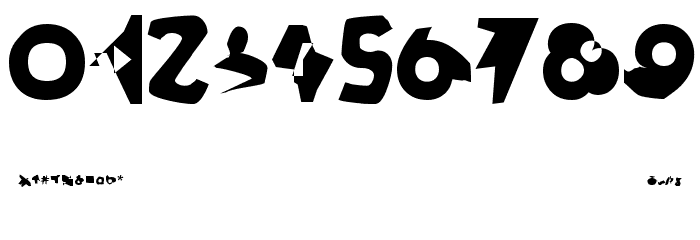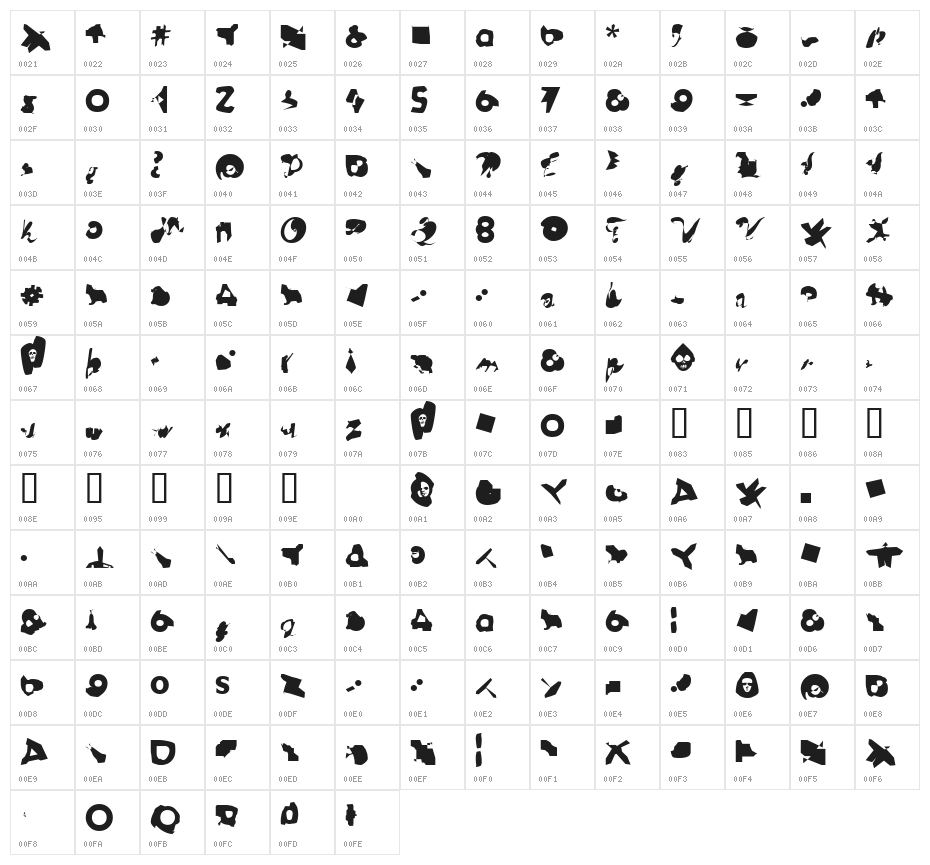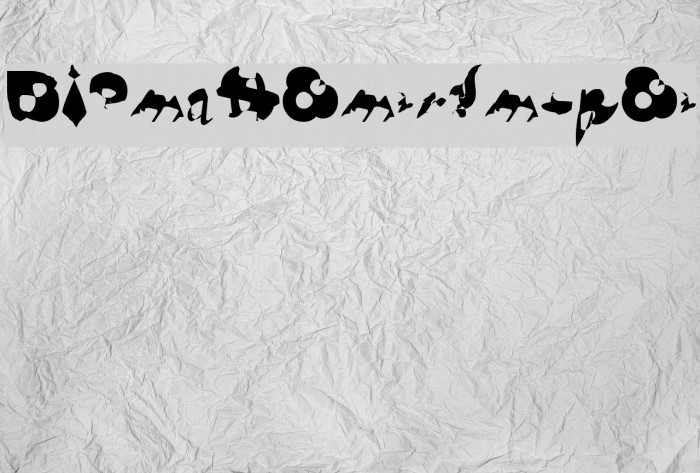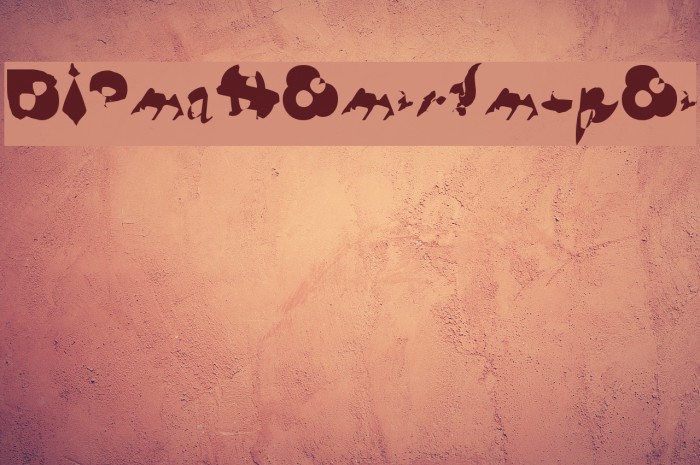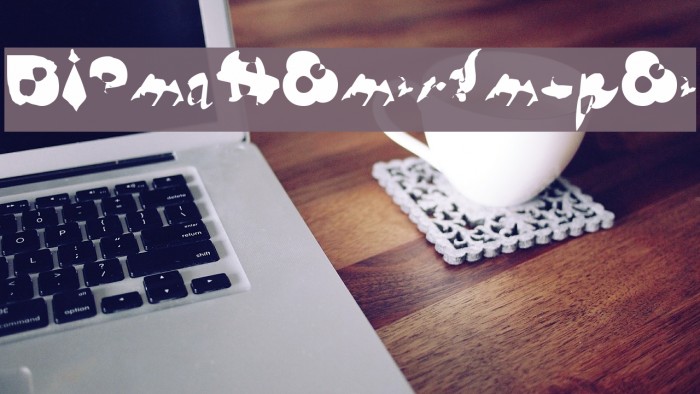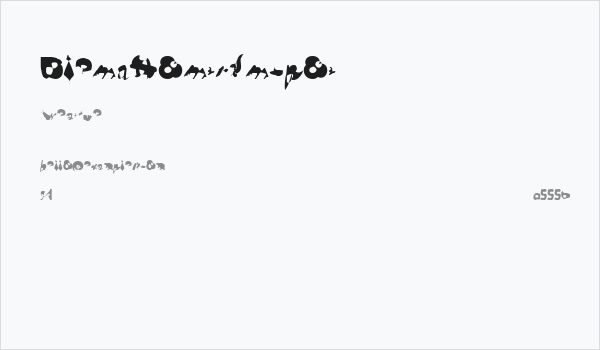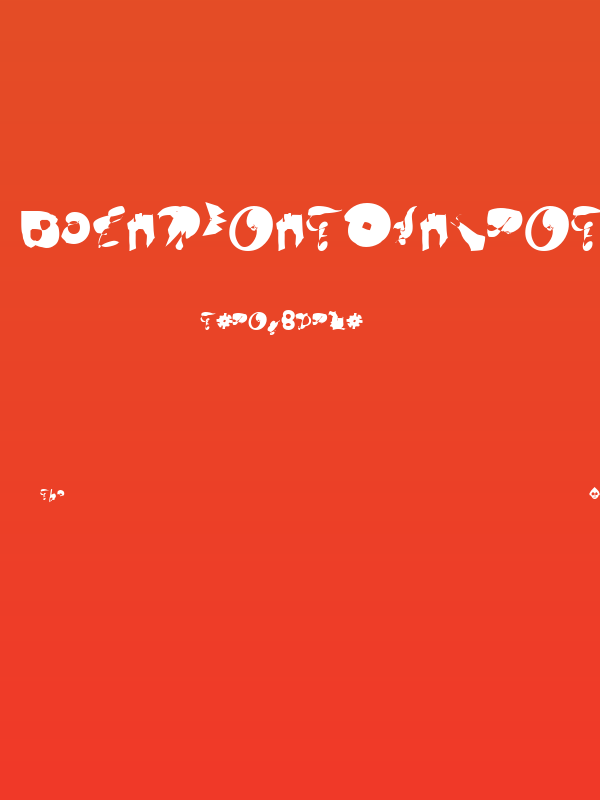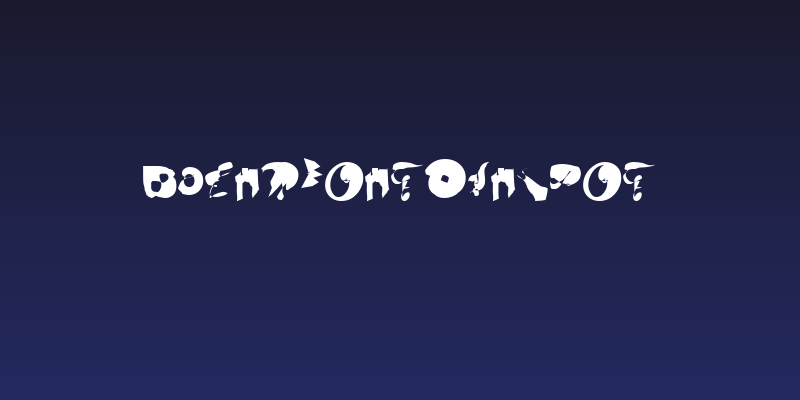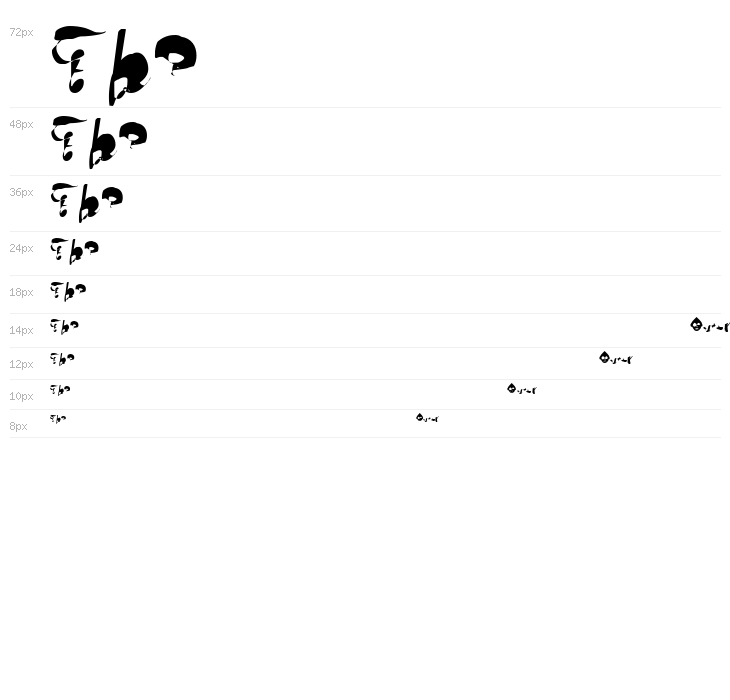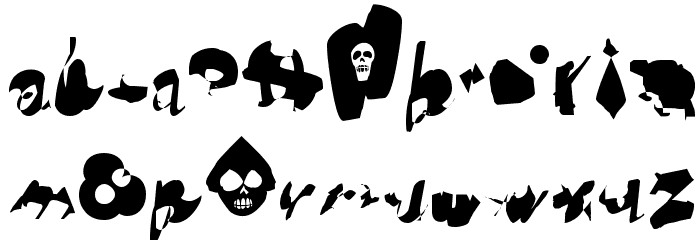
BlendfontsIncpot Font
BlendfontsIncpot Description
This font features a highly decorative and abstract design, incorporating elements that resemble torn paper or ink splatters. Each character is uniquely crafted with irregular shapes and unexpected angles, creating a sense of chaos and artistic flair. The uppercase and lowercase letters, as well as numbers and special characters, maintain a consistent theme of unpredictability and boldness. The font's style is reminiscent of graffiti or street art, making it stand out with its unconventional forms and striking visual impact.
| Use Case | Logos, Posters, Artistic Projects |
| Proposed Projects | Ideal for edgy posters, album covers, street art-inspired designs, and creative branding projects. |